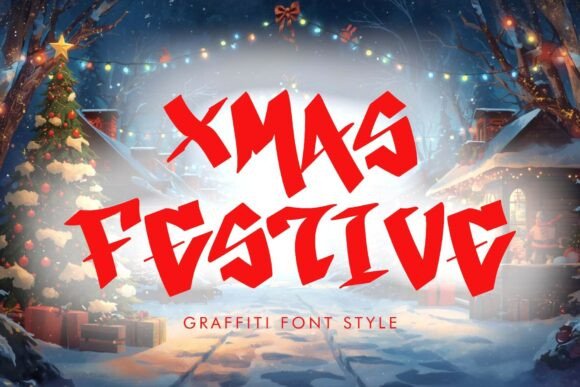
Xmas Festive Font: A Bold Twist on Holiday Design
When it comes to holiday design, the right font can make all the difference. Xmas Festive, a graffiti-inspired display font, brings a fresh and unconventional approach to Christmas-themed visuals. Merging the rebellious energy of street art with the cheerful essence of the season, this font is more than just a stylistic choice—it’s a creative statement.
What Makes Xmas Festive Unique?
The standout feature of Xmas Festive is its fusion of urban edge and festive cheer. Unlike traditional Christmas fonts that rely on soft curls and classic serifs, Xmas Festive uses sharp, angular strokes and expressive flow to create a bold visual impact. This contrast between grit and joy gives it a distinctive character that stands out in a crowded market.
Designed for maximum expressiveness, Xmas Festive captures the movement and rawness typical of graffiti while maintaining a sense of celebration. The result is a font that feels both modern and magical—perfect for anyone looking to break away from conventional holiday aesthetics without losing the spirit of the season.
Key Characteristics of Xmas Festive
Who Can Benefit from Using Xmas Festive?
Xmas Festive isn’t just for designers or artists. It offers value across a wide range of users and industries. From small business owners creating seasonal promotions to event planners designing posters, this font provides a way to stand out during the holidays. Here are some key groups who may find it especially useful:
Real-World Applications of Xmas Festive
Let’s explore how Xmas Festive can be applied practically across different platforms:
1. Holiday Posters: Imagine a poster for a local caroling event or charity gala using Xmas Festive. The boldness of the font draws the eye immediately, making your message impossible to ignore.
2. Merchandise Design: T-shirts, mugs, or tote bags featuring this font can appeal to a younger demographic looking for something fresh and exciting to wear during the holidays.
3. Branding Materials: If your brand embraces a youthful or edgy identity, incorporating Xmas Festive into your holiday branding can help reinforce that image while celebrating the season.
4. Digital Marketing: Social media ads, email newsletters, or website banners can use this font to add a sense of urgency and excitement to limited-time offers or festive content.
Strengths and Practical Considerations
One of the biggest strengths of Xmas Festive is its ability to cut through the noise. In a time when consumers are bombarded with traditional holiday messages, using a font like this can make your design more memorable. It also works well in large formats, such as billboards or storefront displays, where readability is less of a concern than visual impact.
However, there are practical considerations to keep in mind. Because of its unconventional style, Xmas Festive may not be suitable for all audiences or contexts. For example, if you're designing for a formal corporate holiday event or a religious service, a more refined font might be better. Always consider the tone and purpose of your project before deciding to use it.
Evaluating Suitability for Your Project
Here are some questions to ask yourself when evaluating whether Xmas Festive is the right fit:
Answering these questions honestly will help ensure that Xmas Festive enhances your design rather than detracts from it.
How to Make the Most of Xmas Festive
To truly harness the potential of Xmas Festive, consider pairing it with complementary design elements. Since it has a strong visual presence, balance it with simpler, cleaner fonts for body text. Also, think about color choices—bright reds, greens, and golds can amplify the festive mood, while contrasting black or white backgrounds highlight the font's detail.
Another tip is to experiment with spacing and alignment. Because of its expressive nature, the font can look even more striking when used creatively, such as overlapping letters or arranging them in a stylized pattern. These techniques can turn a simple design into a visually compelling piece that commands attention.
Common Mistakes to Avoid
While Xmas Festive is versatile, it's important to avoid overusing it. Here are some common mistakes to watch out for: